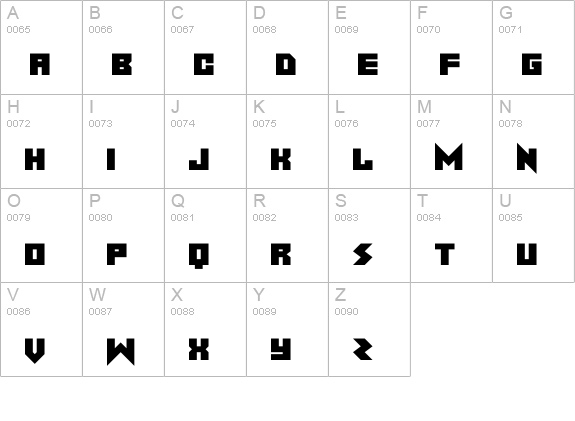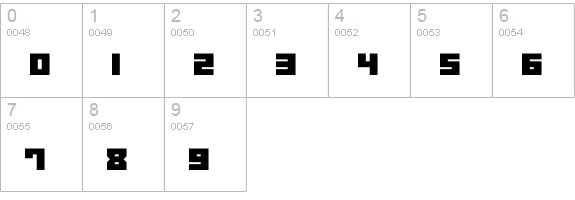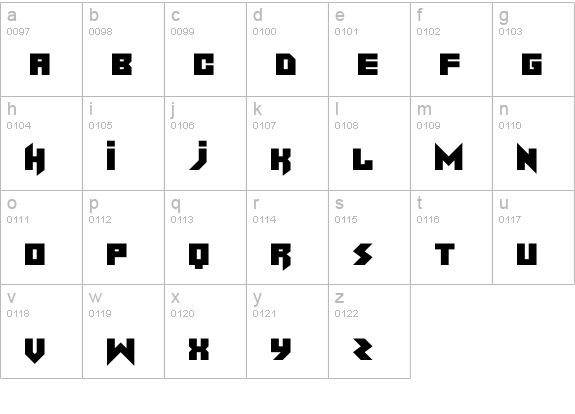
Noise Machine Font Details
Introducing Noise Machine font, a whimsical and unique typeface that will add a touch of creativity to your projects. This font features a playful design with irregular shapes and quirky details, perfect for making your text stand out. With its eye-catching appearance, Noise Machine font is sure to capture attention and leave a lasting impression.